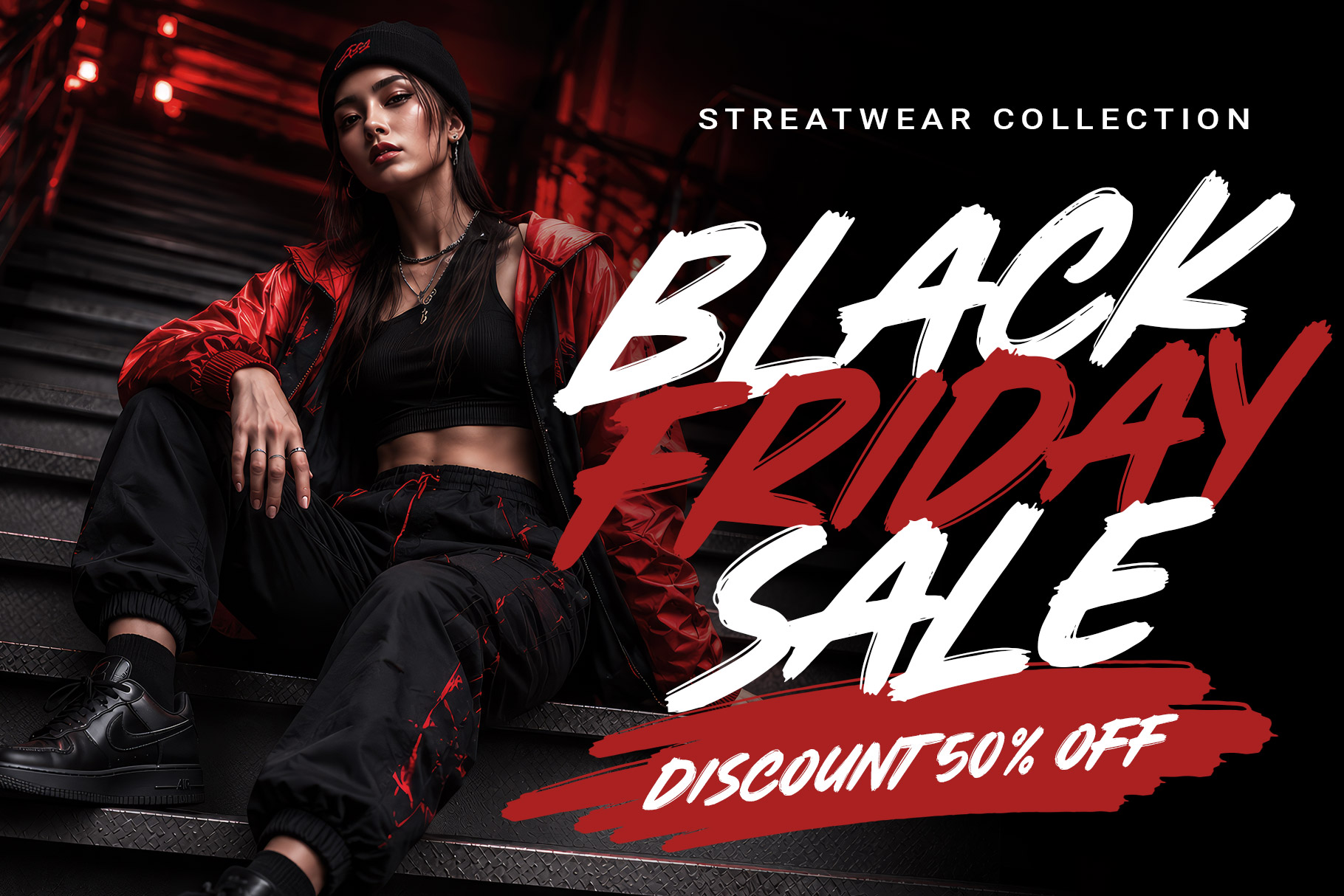
Broken Slash is bold display brush font designed to deliver a raw, energetic, and rebellious visual impact. Inspired by expressive hand-painted lettering, it features thick strokes, rough edges, sharp terminals, and natural brush textures that create an authentic handmade character.
Broken Slash is a perfectly choice for any creative endeavor, creating, modern, lifestyle design such as logotype, title, cover, branding, invitations, display and magazine, social media posts, advertisements, printed quotes, product packaging, corporate brand, product designs, labels, photography, watermarks, special events and any other project with modern touch.
Broken Slash Display Brush Font